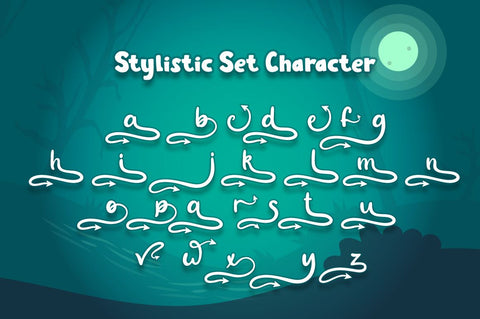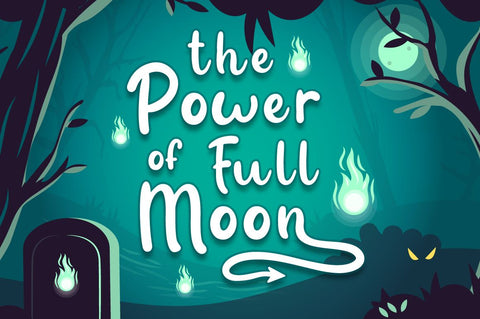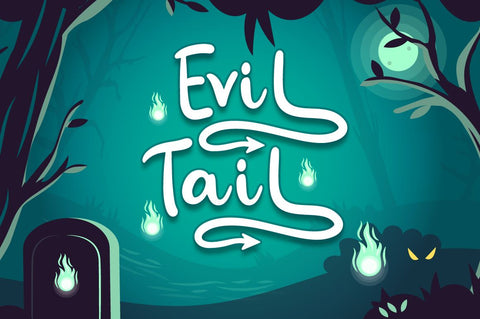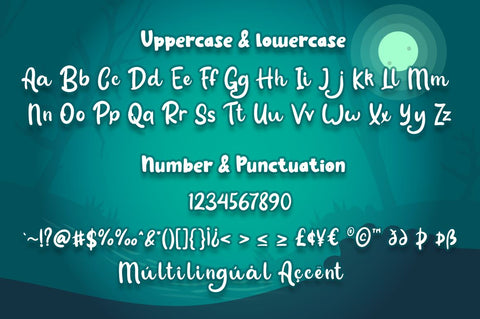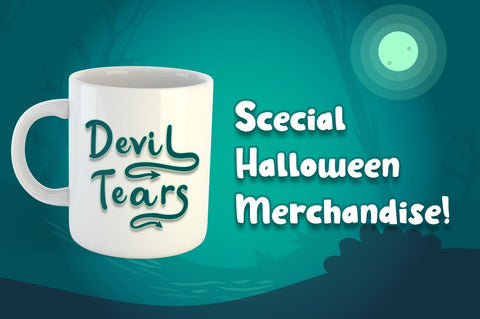
Evil Tail - Halloween Font
Evil Tail is a delicate and incredibly distinct Halloween Script Font. Fall in love with its incredibly versatile style and use it to create spectacular designs!
Evil Tail perfect for halloween promotion, branding, logo, invitation, stationery, social media post, product packaging, merchandise,
blog design, game titles, cute style design, Book/Cover Title and more.
- Ending Swash